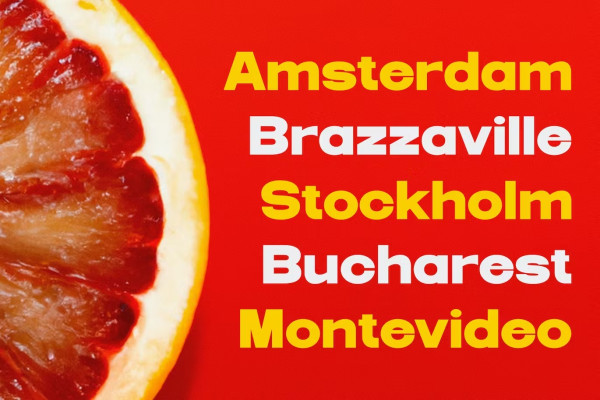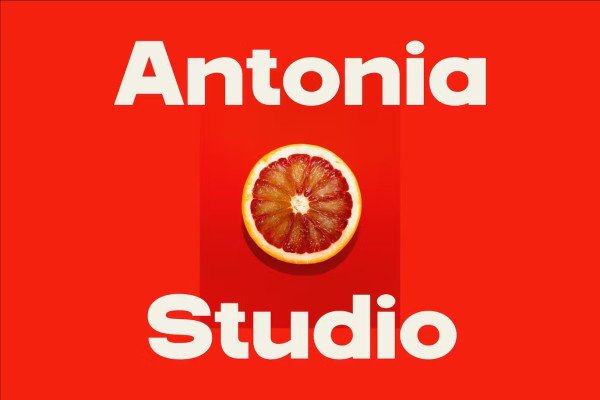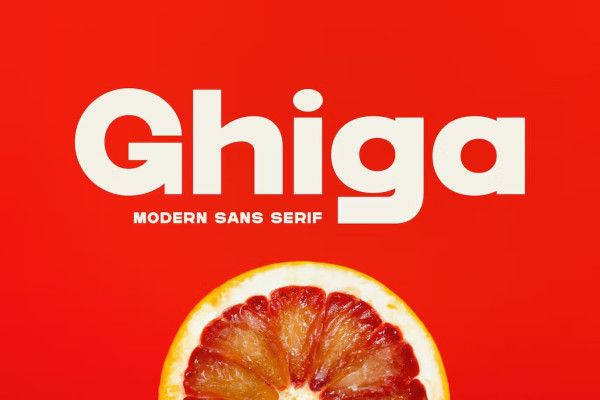
Ghiga Font
Ghiga Font, modern sans serif font with elegant style this is perfect for branding, logos, invitation, magazines, product packaging and more. Please download and enjoy, thank you, and don’t forget to check out our other products.